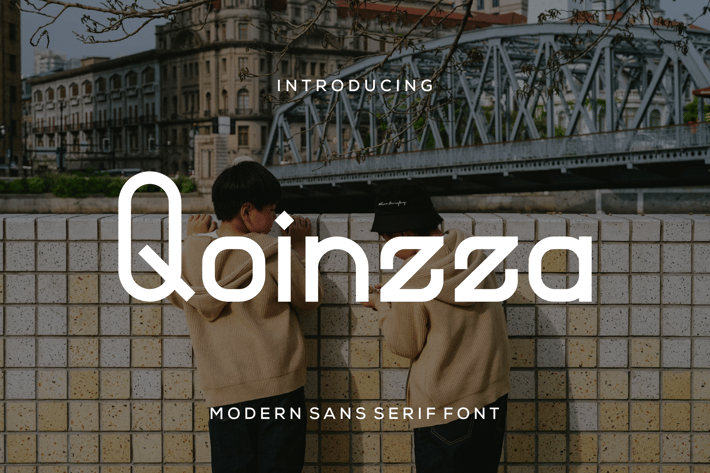
Qoinzza - Modern Sans Serif Font
Introducing our new product - Qoinzza Modern sans serif Font
Qoinzza is a modern sans serif font, modern display font with playful flair, ideal for attention-grabbing headlines, logos, and diverse design projects. Versatile and readable in both digital and print, Qoinzza adds a dynamic touch to your message.